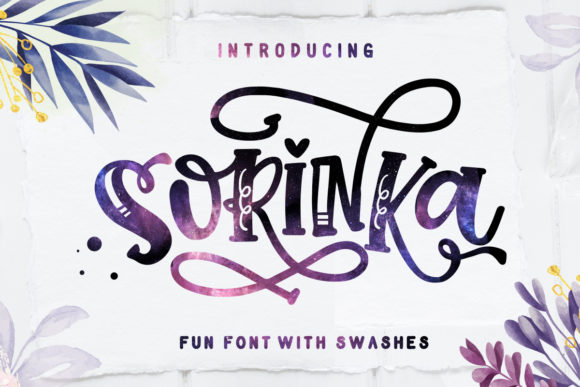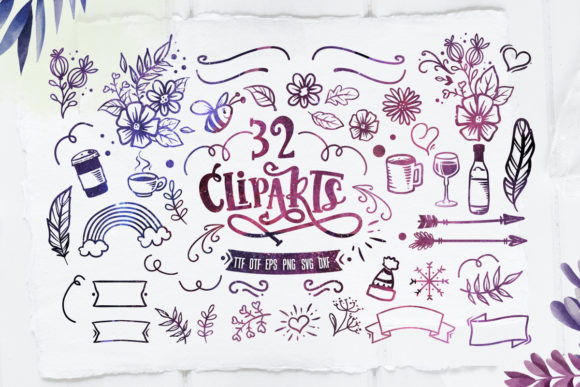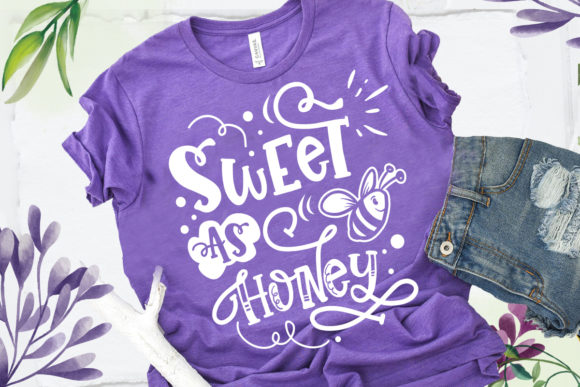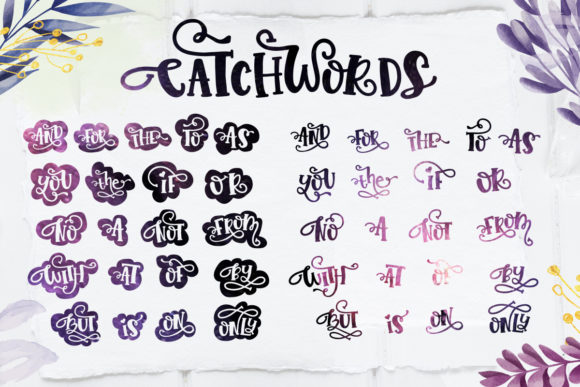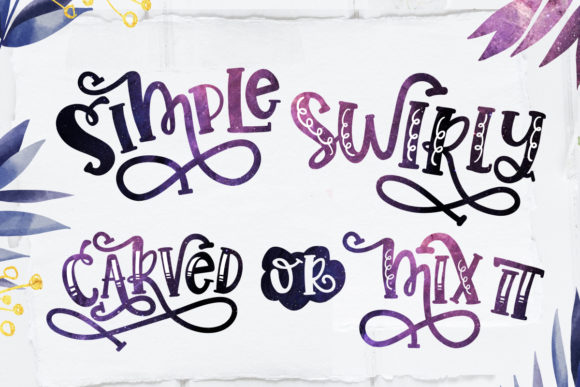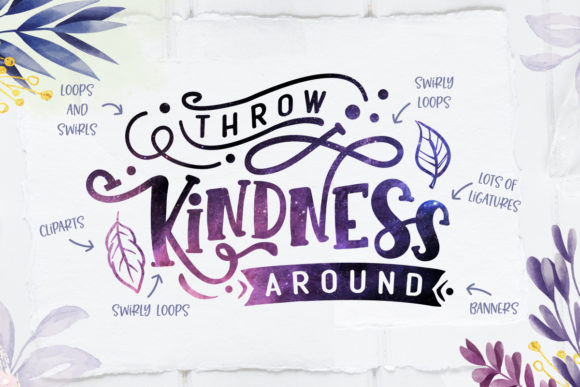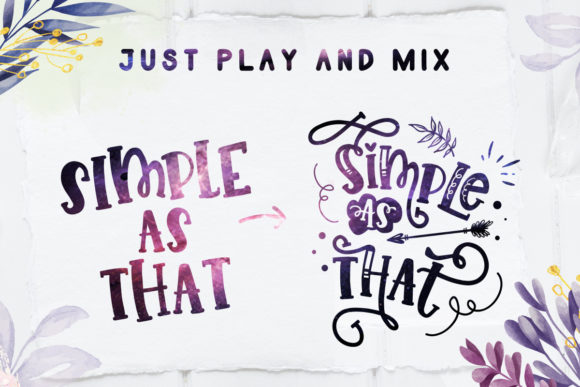
Sorinka Font
About Sorinka Font
Sorinka is an extraordinary script with a huge amount of extra ligatures and alternates. This is a true must-have and belongs in any crafter’s font library!